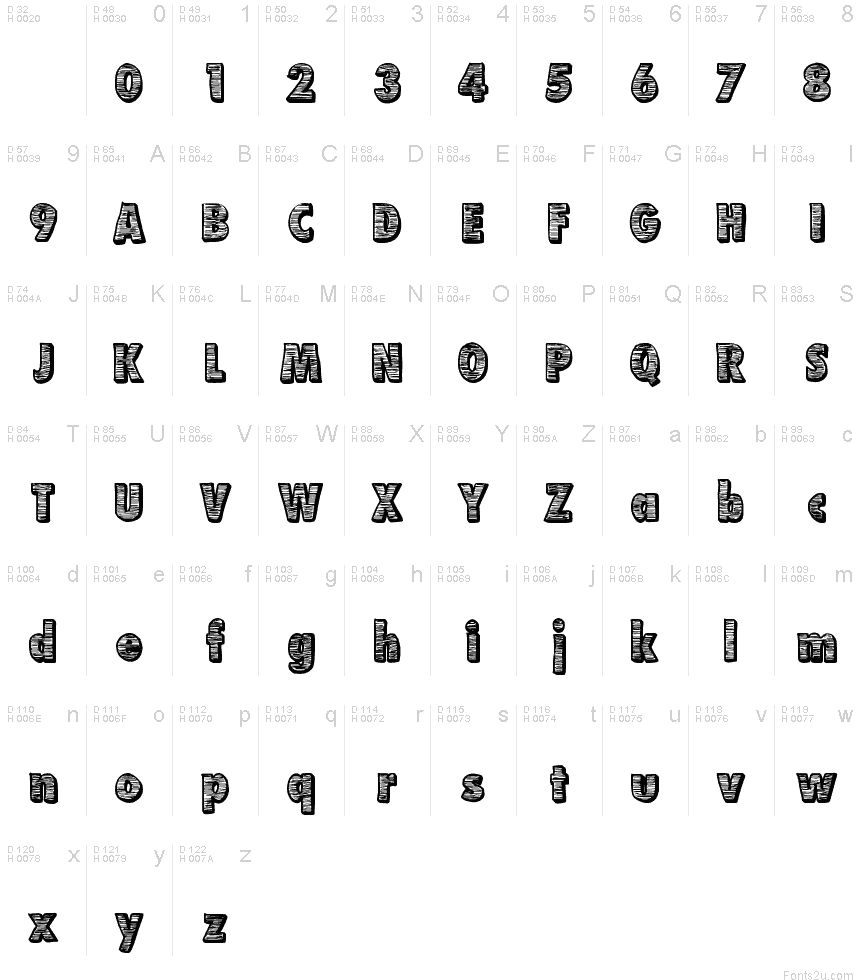
Futurr by LDF is a free cartoon display font with oversized, springy letters and a rough 3D treatment. Broad black contours give the forms a soft, inflated silhouette. Inside, loose horizontal scratches break up the weight and make the lettering feel hastily shaded with a marker.
That hand-sketched fill can echo comic illustrations on children's posters and game graphics, turning the type into part of the artwork rather than a separate caption. For snack packaging, novelty merchandise, and music event flyers, the swollen outlines and repeated hatch marks suggest noisy, humorous motion.
LDF
Futurr